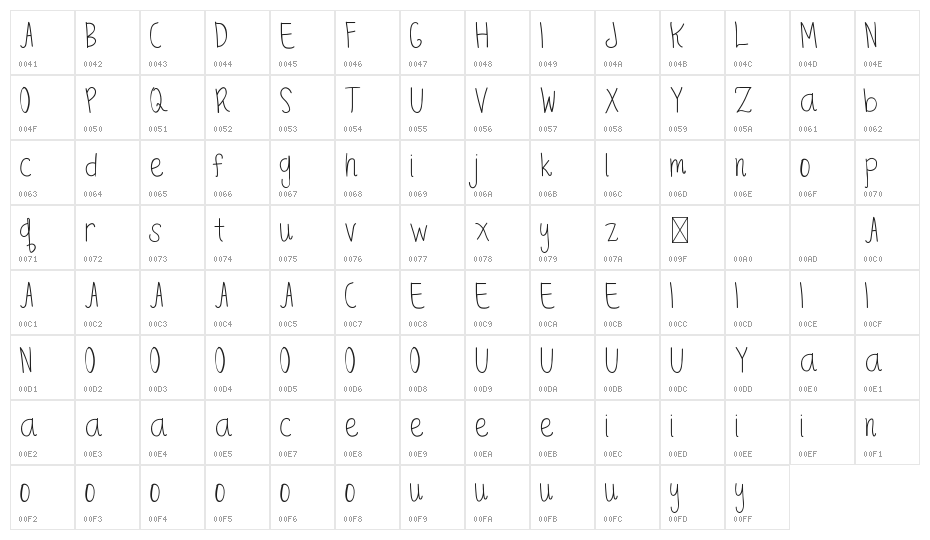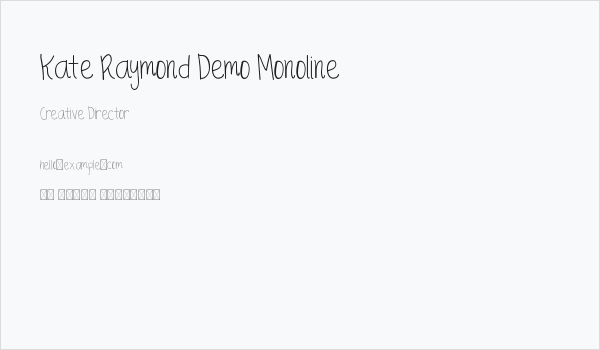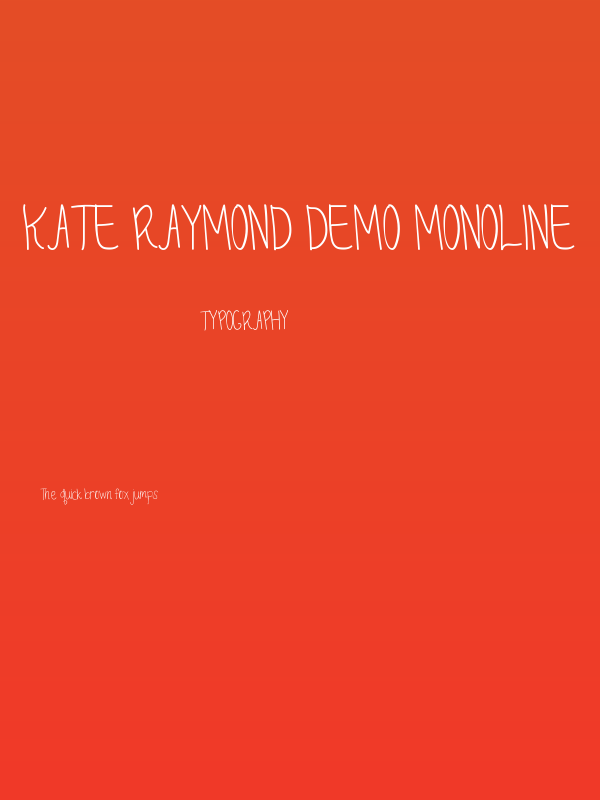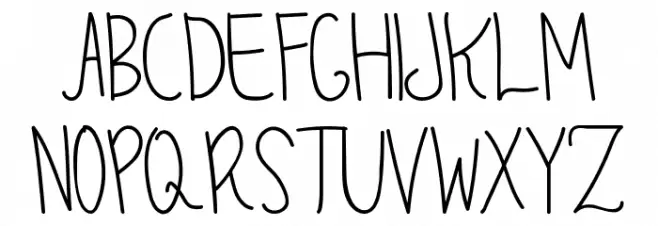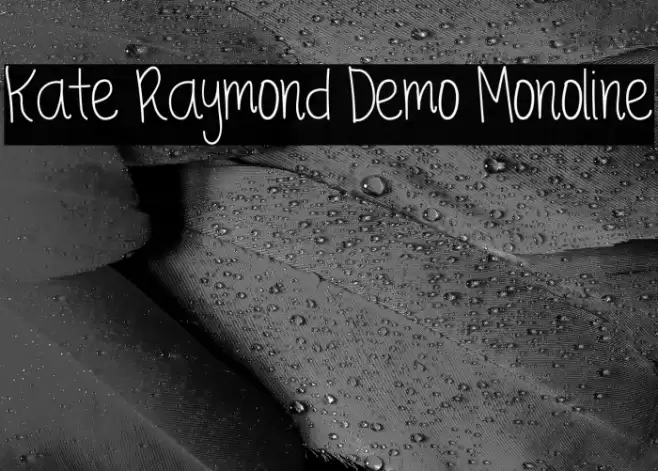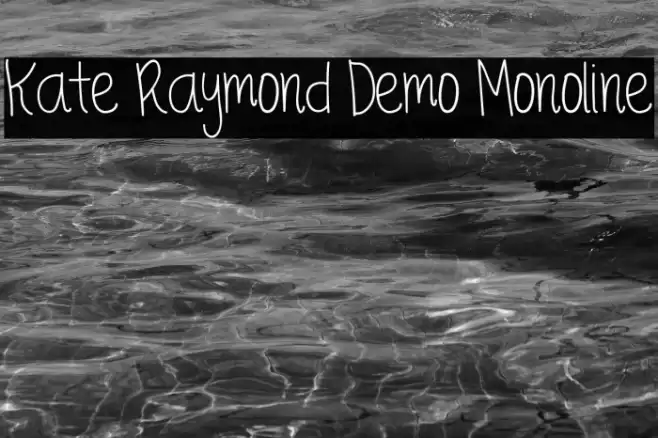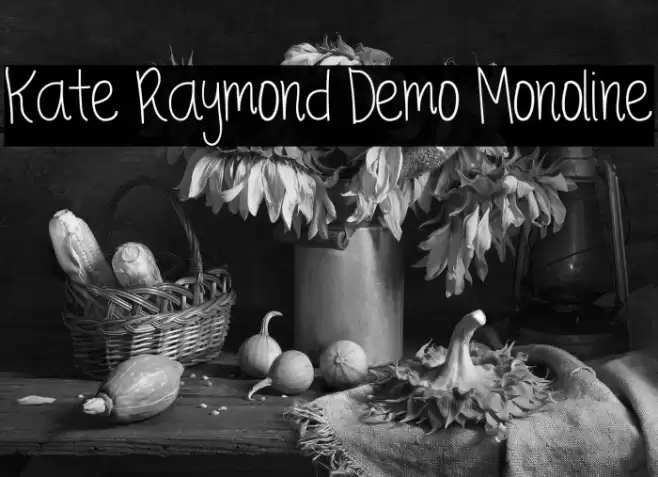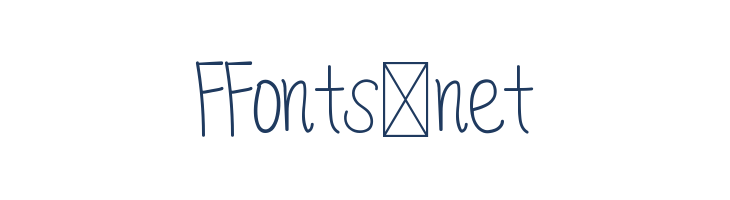
Kate Raymond Demo Monoline Font
This font features a playful and casual monoline style, characterized by its consistent stroke width and hand-drawn appearance. The letters are tall and narrow, with a slight slant that adds a touch of whimsy. The uppercase letters are distinct with rounded edges, while the lowercase letters maintain a similar style, enhancing readability. The font includes a full set of uppercase and lowercase letters, numbers, and a selection of special characters. Its informal and friendly look makes it suitable for creative projects that require a personal touch.
| Proposed Projects | Ideal for greeting cards, children's books, casual branding, and social media graphics. |